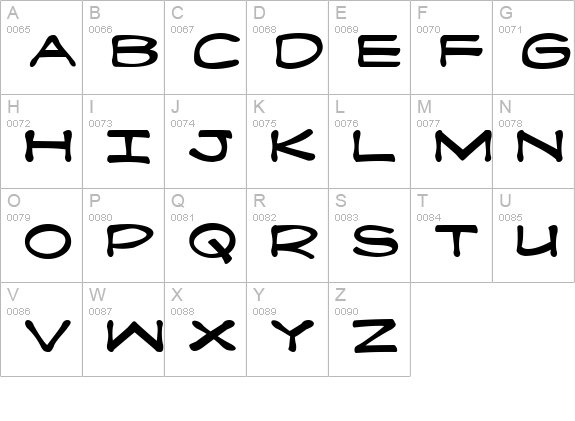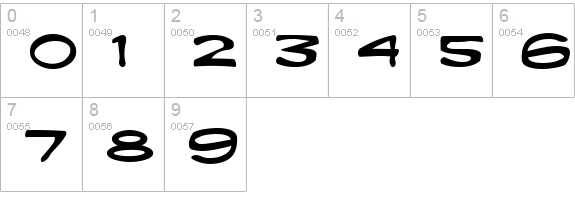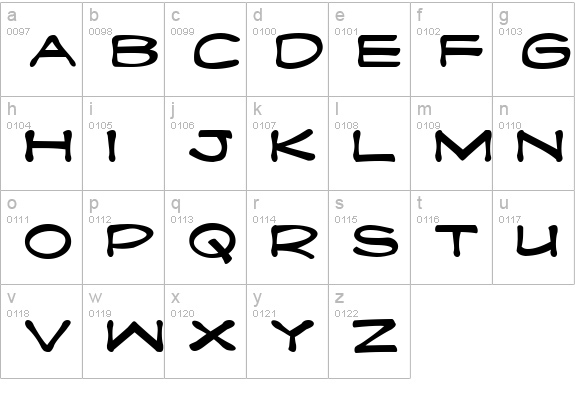
Fanboy Hardcore Font Details
Fanboy Hardcore font is a bold and energetic typeface that exudes passion and enthusiasm. With its strong and edgy appearance, it is perfect for making a statement in any design project. The font captures the essence of hardcore fandom and is sure to grab attention wherever it is used. What makes Fanboy Hardcore font even more appealing is that it is available for free download at FontsMarket.com. This means you can easily access this dynamic font and use it in your projects without any hassle. Whether you are a dedicated fan looking to express your love for a particular subject or a designer looking for a bold and impactful font, Fanboy Hardcore is the perfect choice. Download it today and let your creativity shine with this exciting and thrilling typeface.